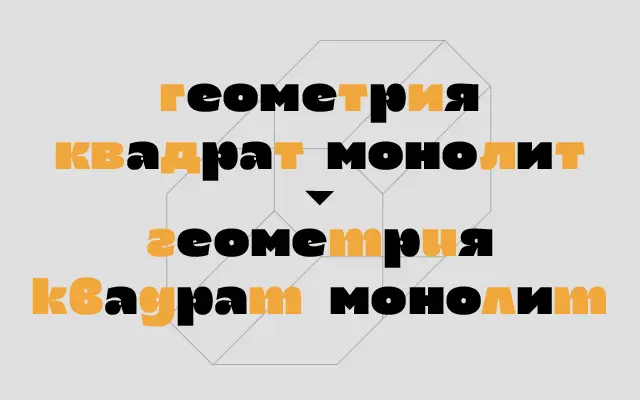
Gismo
A geometric display family in four corner-treatment styles, ranging from soft rounds to hard rectangles, released by Fontfabric with Ani Dimitrova in 2023.
Four static styles plus a variable font let designers slide between approachable rounded forms and angular technical precision within a single coherent family. The range suits headlines, packaging and branding work where tonal flexibility matters across a campaign. Extended Latin and Cyrillic coverage, alongside OpenType features including ligatures and contextual alternates, broadens its practical reach.
A geometric display family built around four distinct corner treatments ranging from fully rounded to fully rectangular, placing it squarely in the display category with a geometric structure.